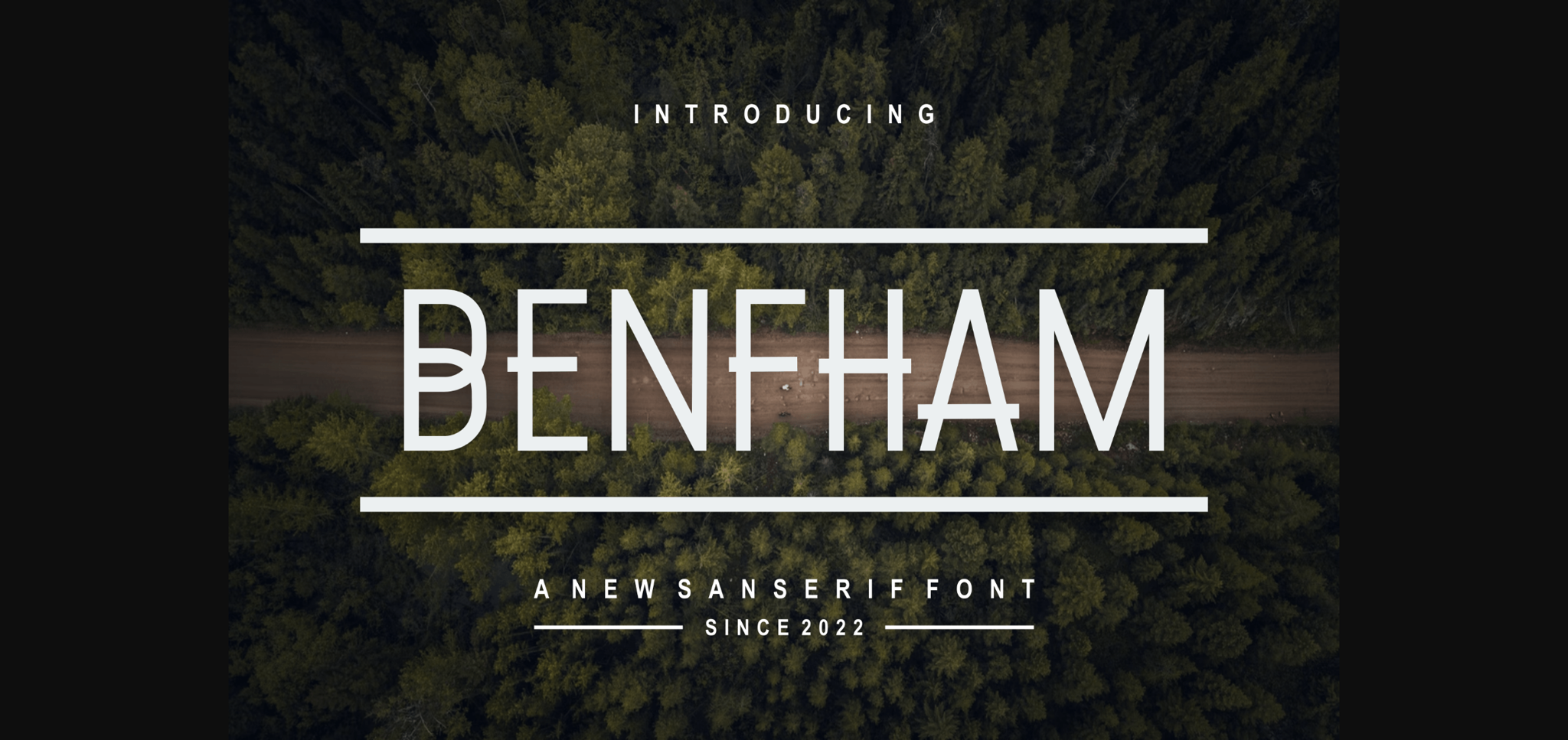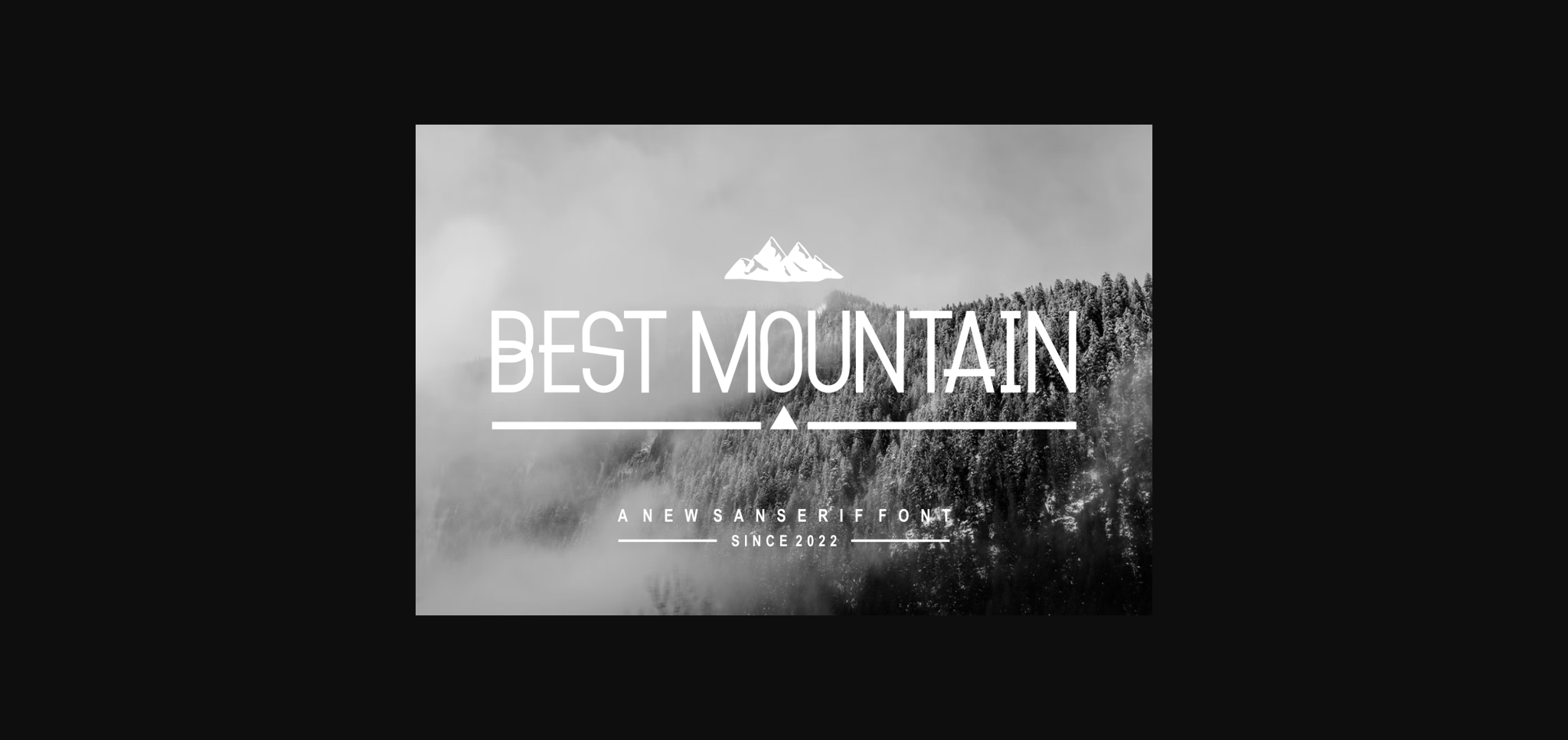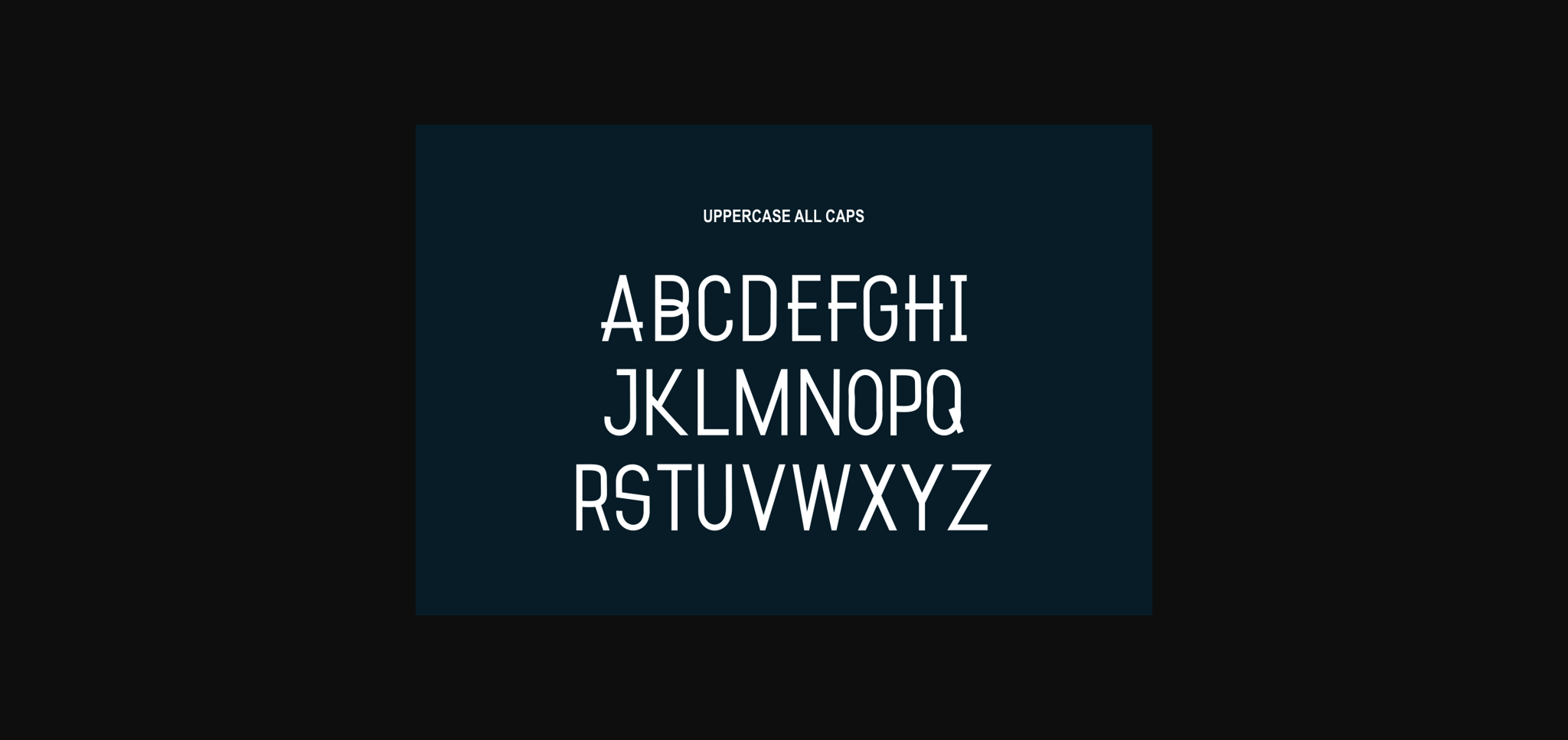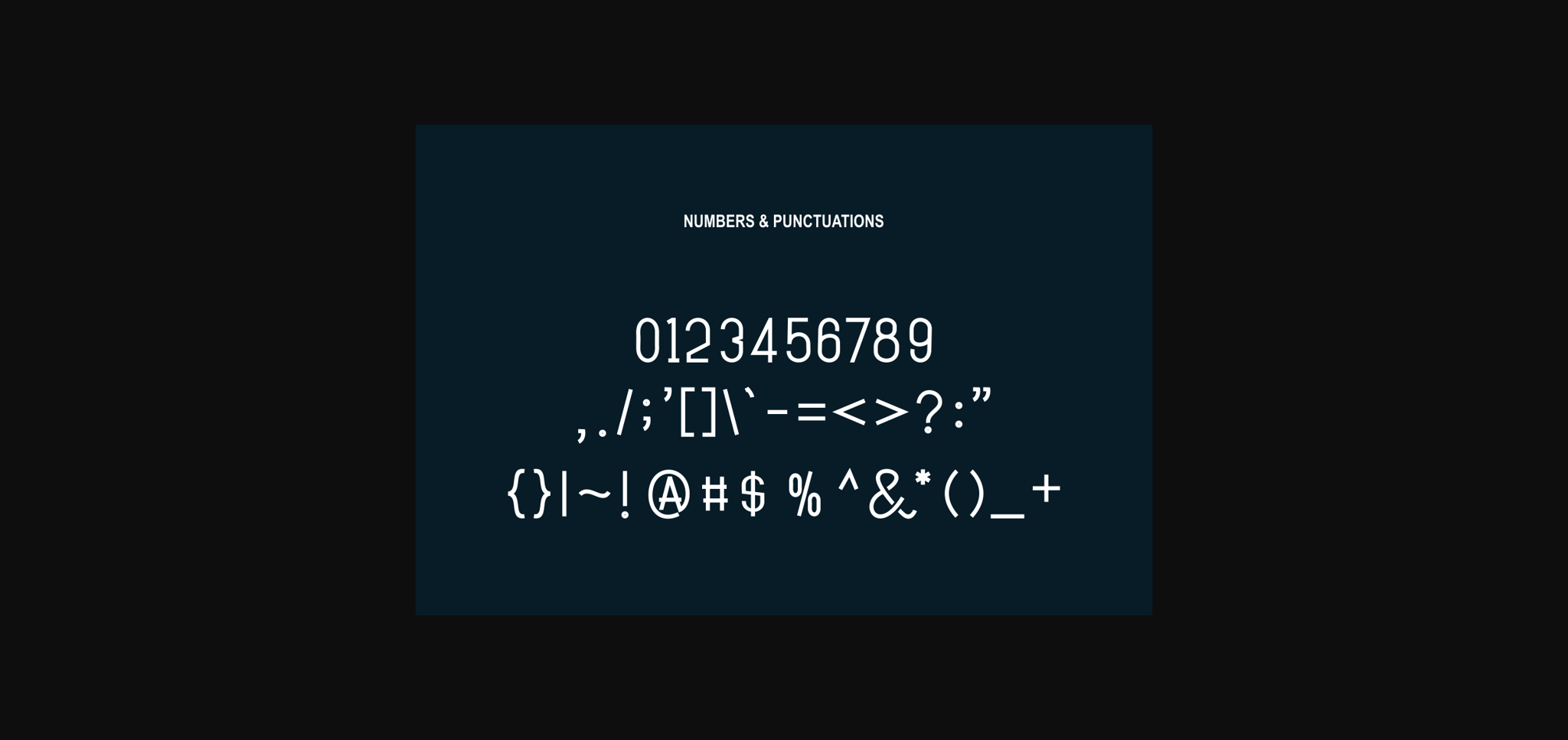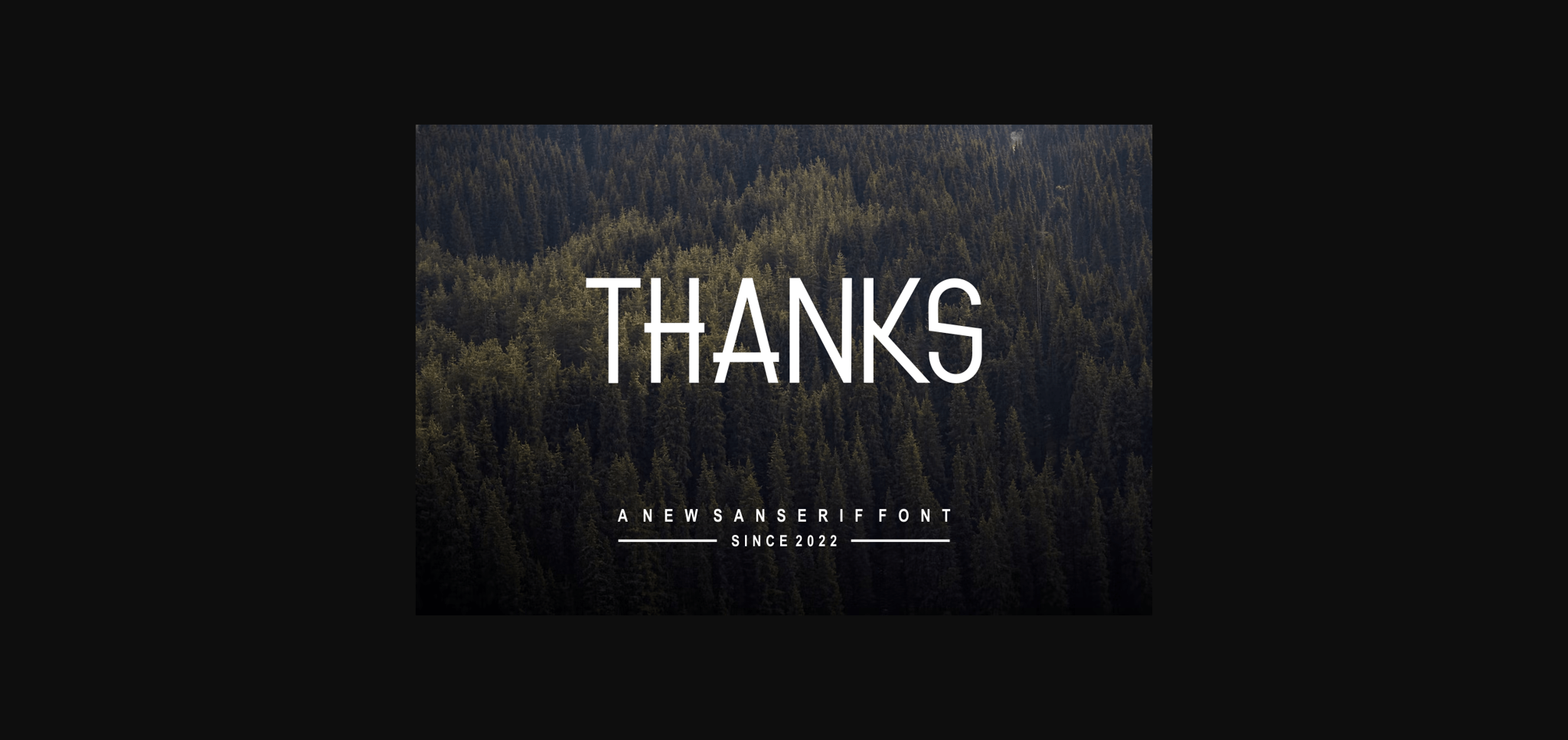
HomeSans Serif FontsBenfham Font Sans Serif Fonts Benfham Font FacebookXPinterestWhatsApp 1 of 7 ... Benfham Font Poster 2... Benfham Font Poster 3... Benfham Font Poster 4... Benfham Font Poster 5... Benfham Font Poster 6... Benfham Font Poster 7... About Benfham Font Benfham is a cool and modern sans serif font. Incredibly versatile, this font is suitable for a wide range of crafty ideas. DOWNLOAD NOW People also explored Werk Nextart Extra Black Font Morning Story Font Arabasta Font Film Fiction Font Mitha Silva Font Xmas Mug Font Unicorn Kidi Font Blue Ocean 313 0 TagsBenfhamBenfham Font Previous articleBewitche FontNext articleSmart Switch Font LEAVE A REPLY Cancel reply Comment: Please enter your comment! Name:* Please enter your name here Email:* You have entered an incorrect email address! Please enter your email address here Website: Save my name, email, and website in this browser for the next time I comment. Personal Use Free Potato Pancakes Personal Use Free Read more about this font Kids Toys Personal Use Free Read more about this font Orchid Personal Use Free Read more about this font Sunbright Font Personal Use Free Read more about this font BLOG To increase your work productivity, choose the most readable fonts. In today's fast-paced work environment, where digital communication and information consumption are integral to our daily routines, the choice of fonts can significantly impact... Modern Sans-Serif Fonts That Brands Love in 2025 Where to Buy American Fonts Online in 2024 Best Fonts for YouTube Videos: Make Your Thumbnails Stand Out